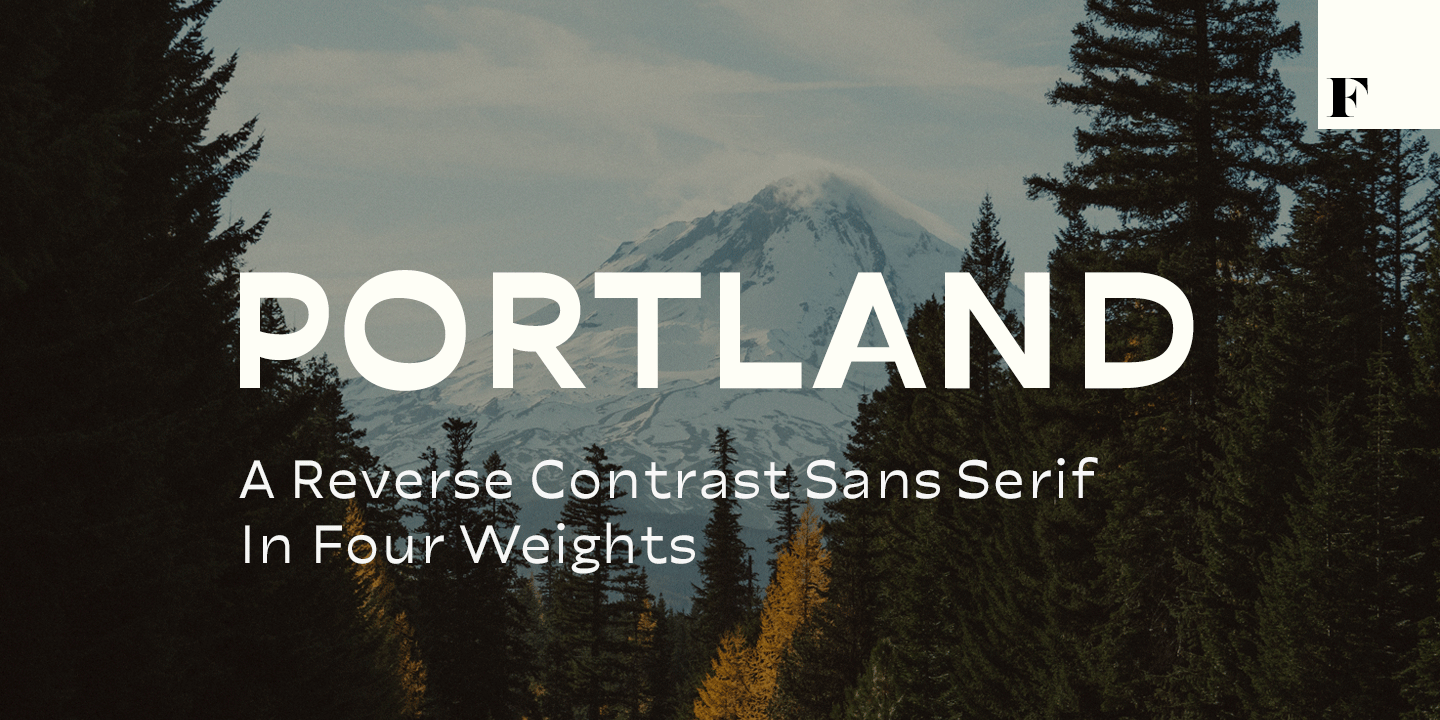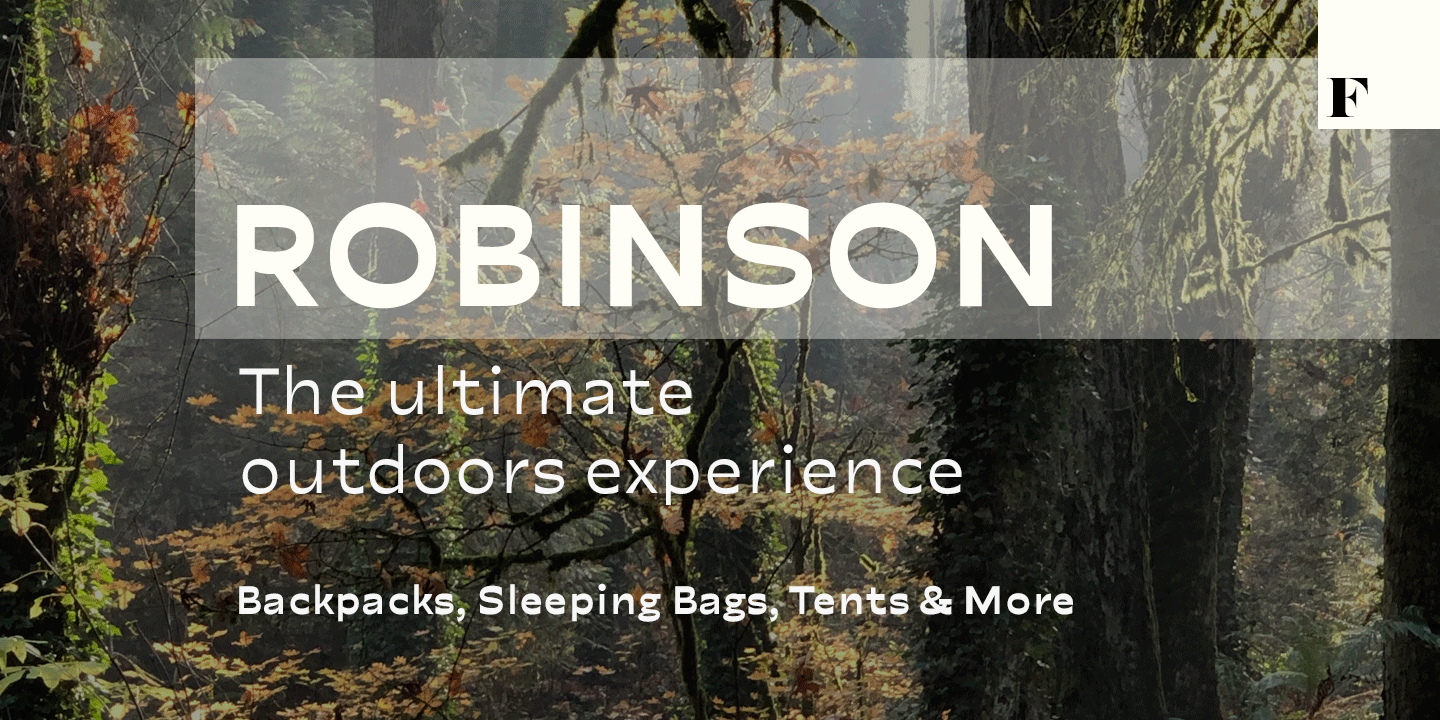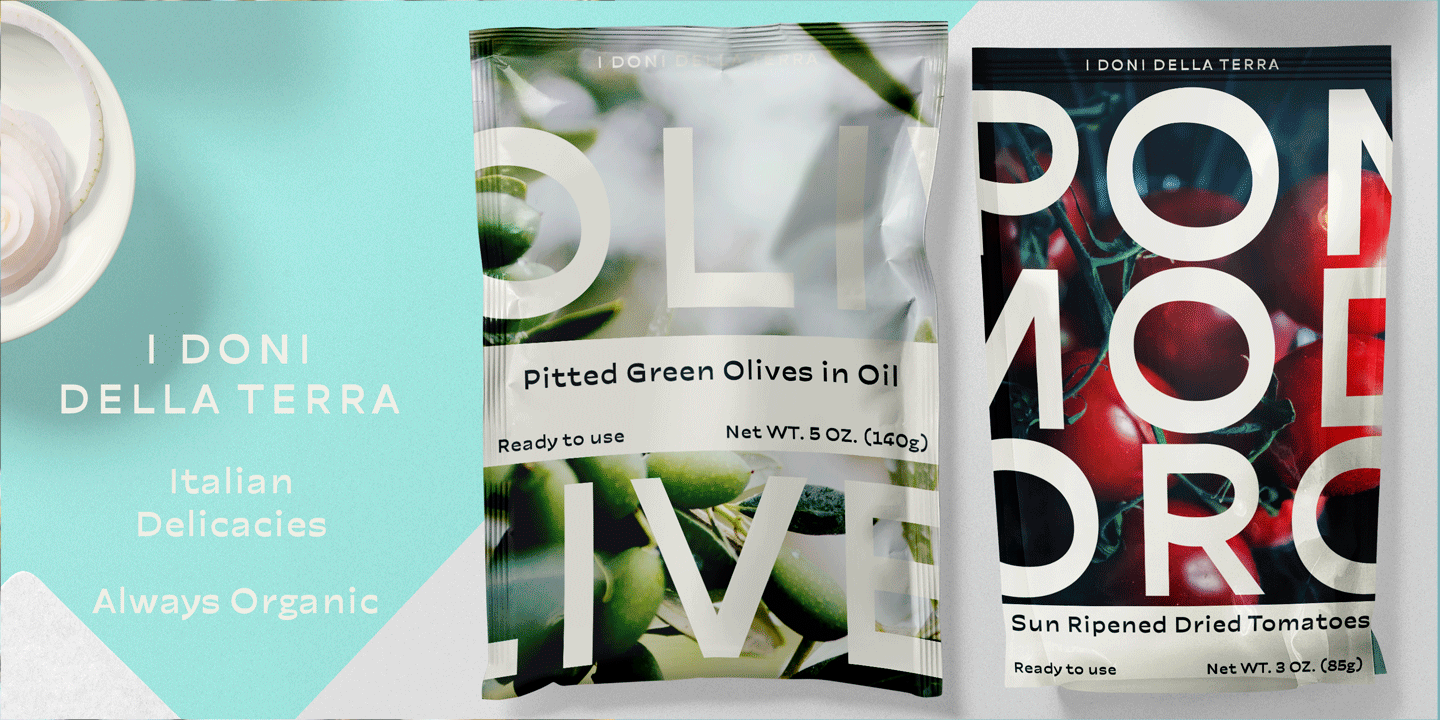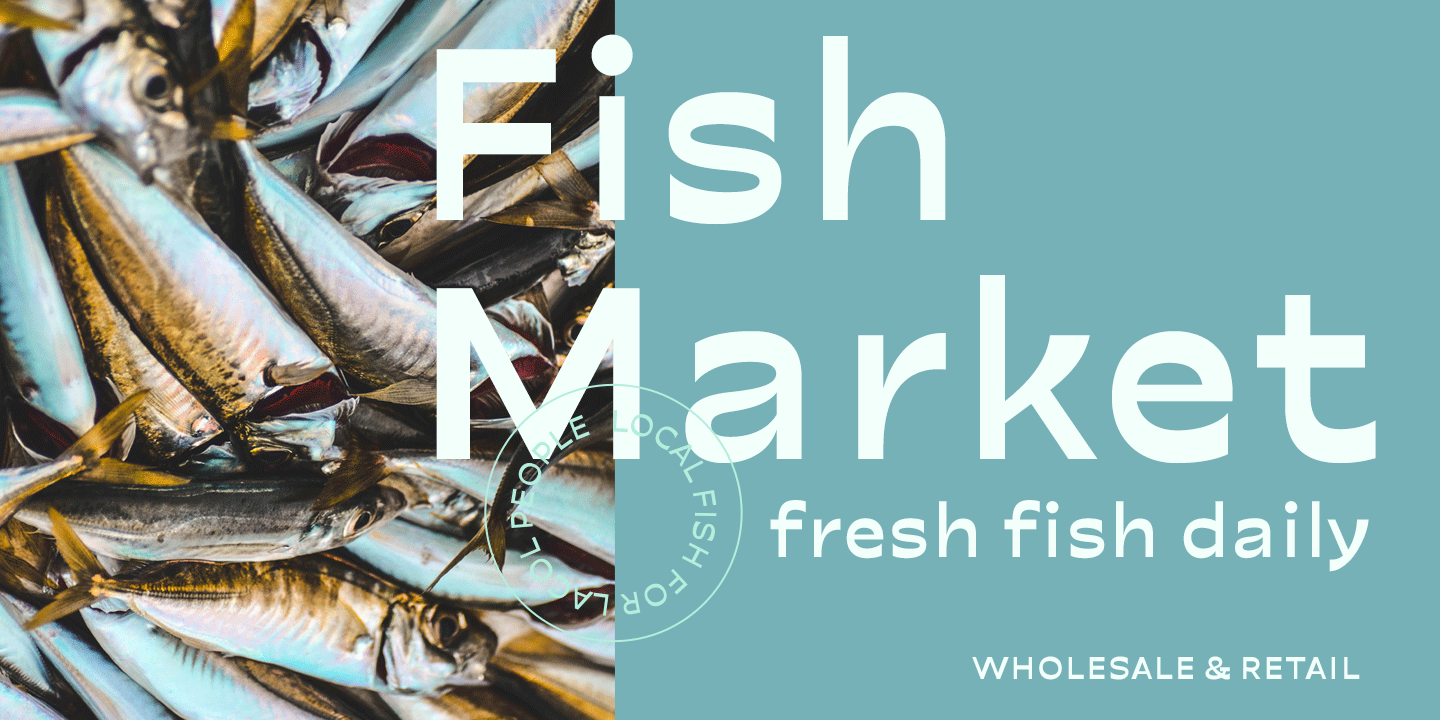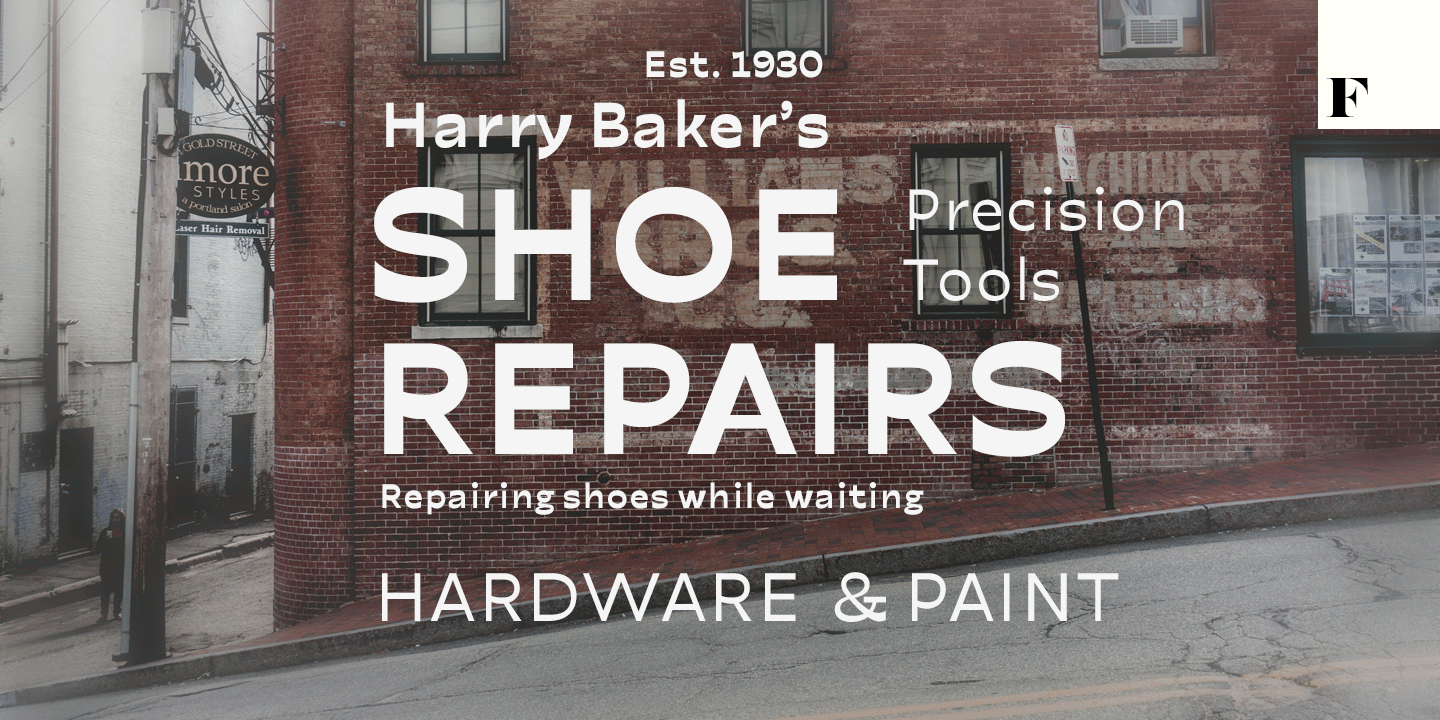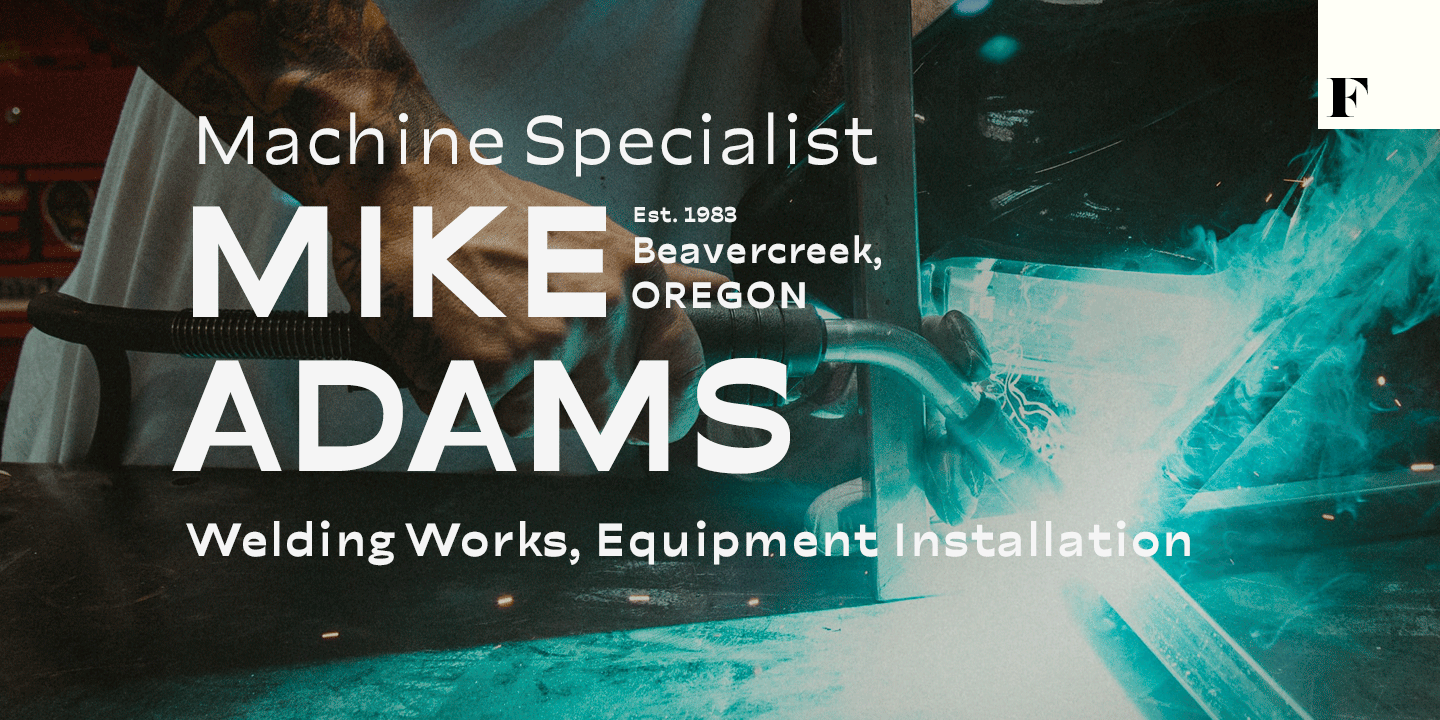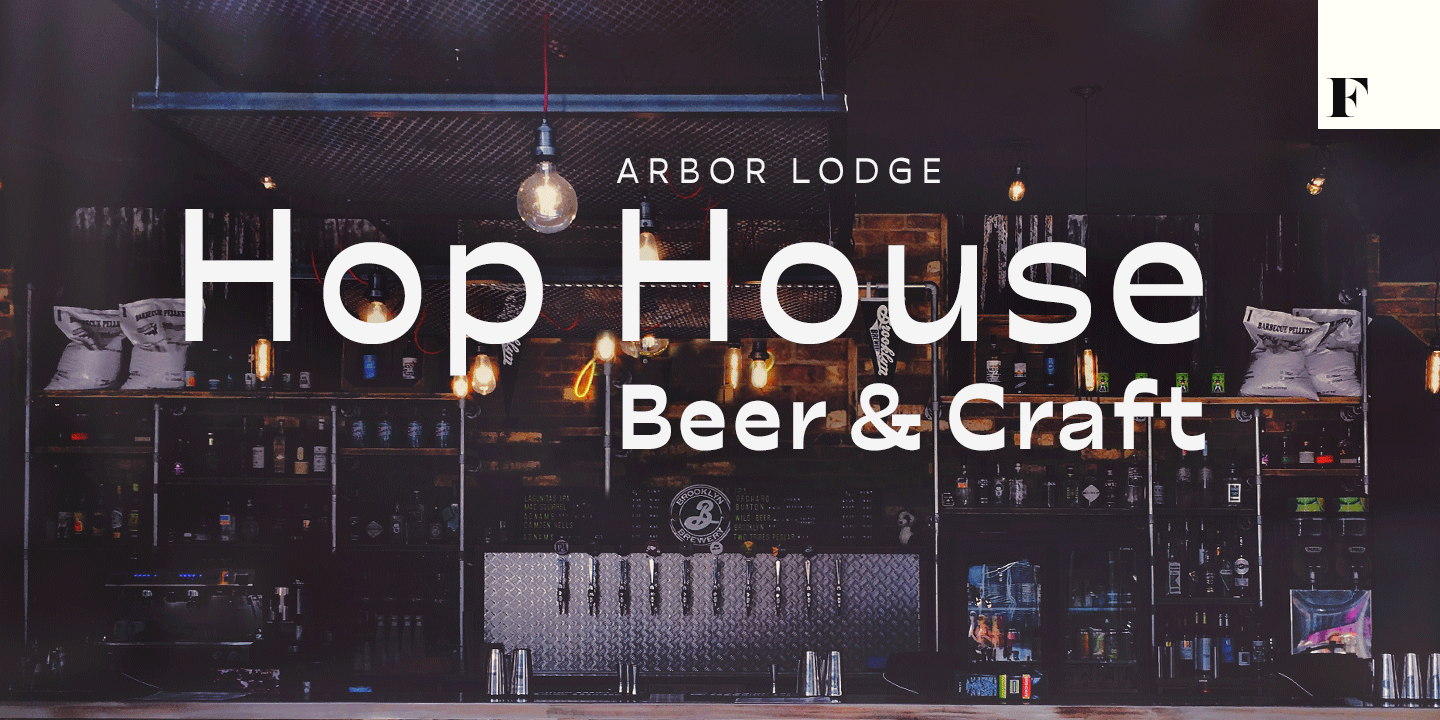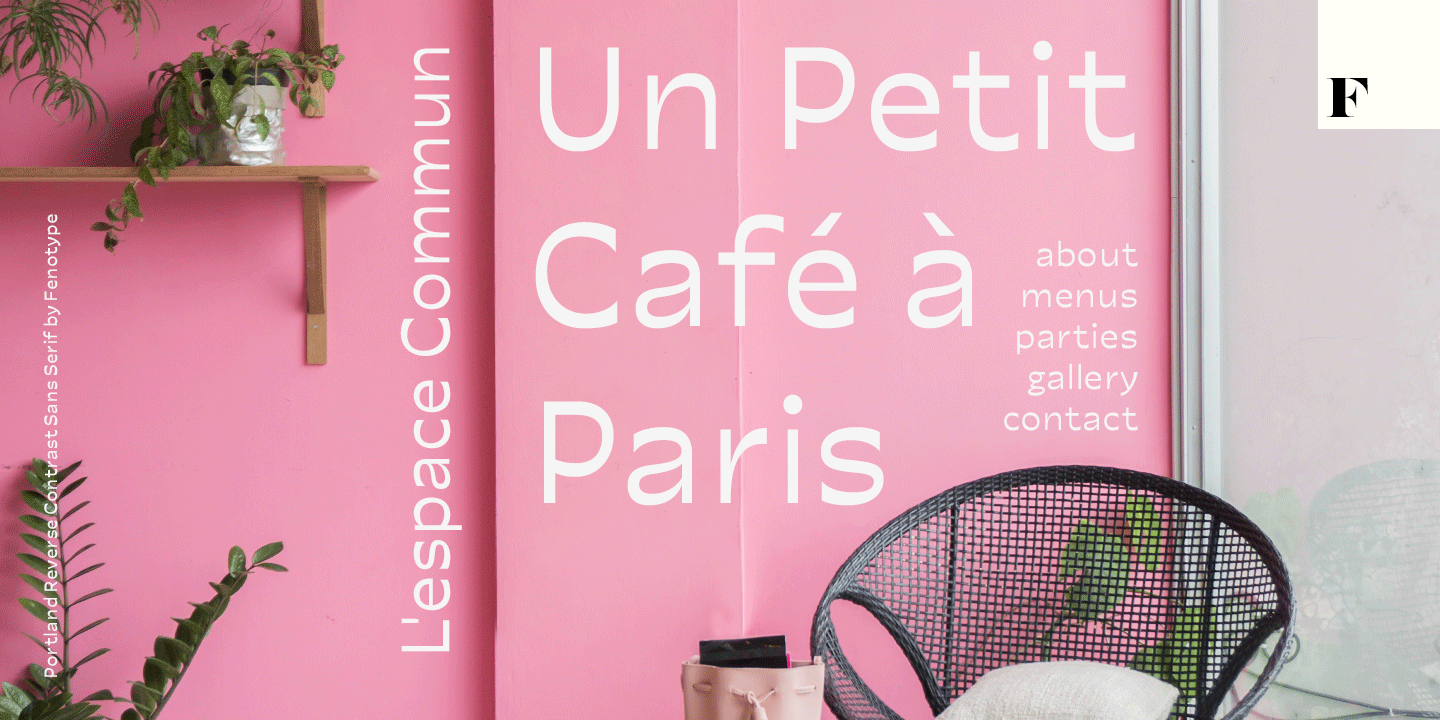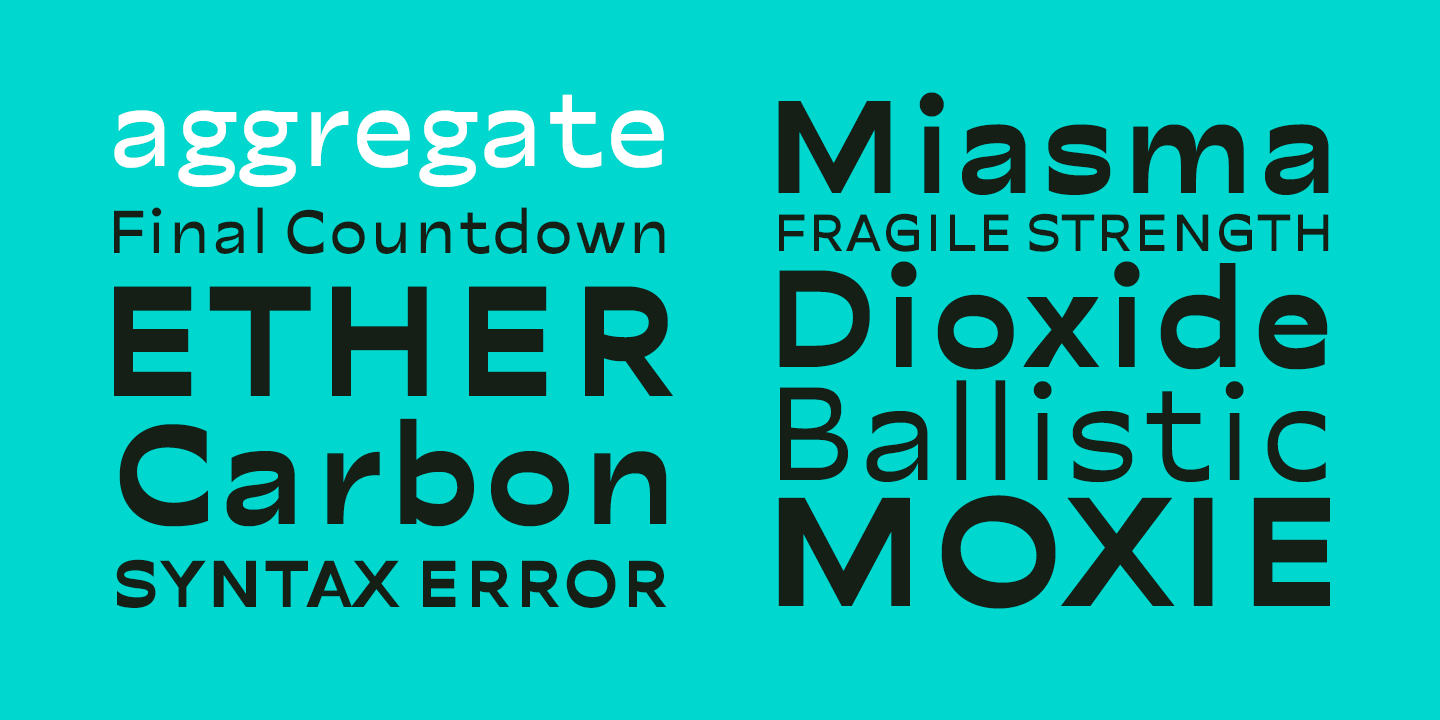
Portland
Font Family by Fenotype
Made you look? There's a peculiar feel to the letters ? achieved by the reversed contrast. Perfectly legible yet there's something about the characters that makes them stand out. As Viktor Shklovsky once coined, ?Habitualization devours objects? ? the everyday world becomes invisible until we are forced to see it otherwise.
The Portland font family is a tool of choice when you want to effortlessly make your designs stand out.